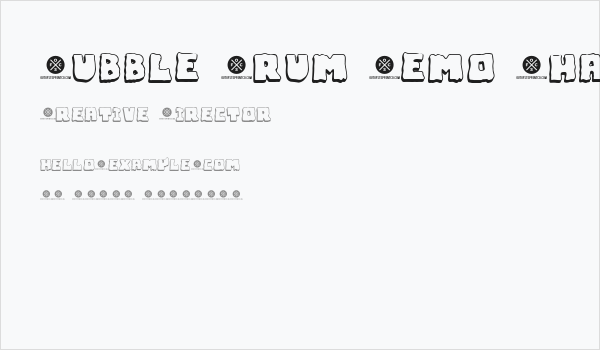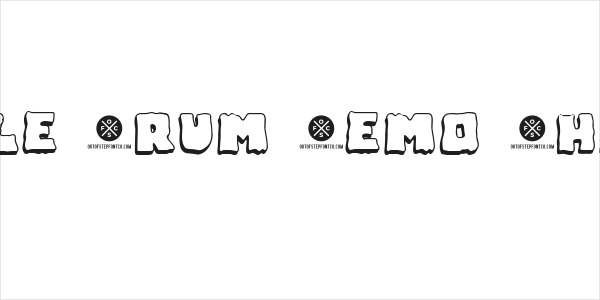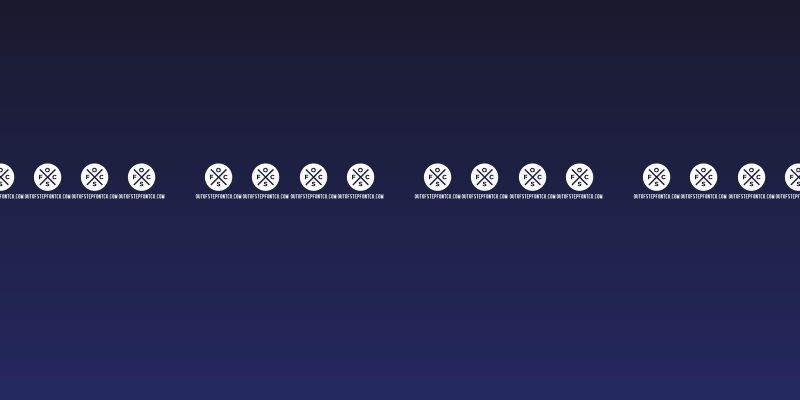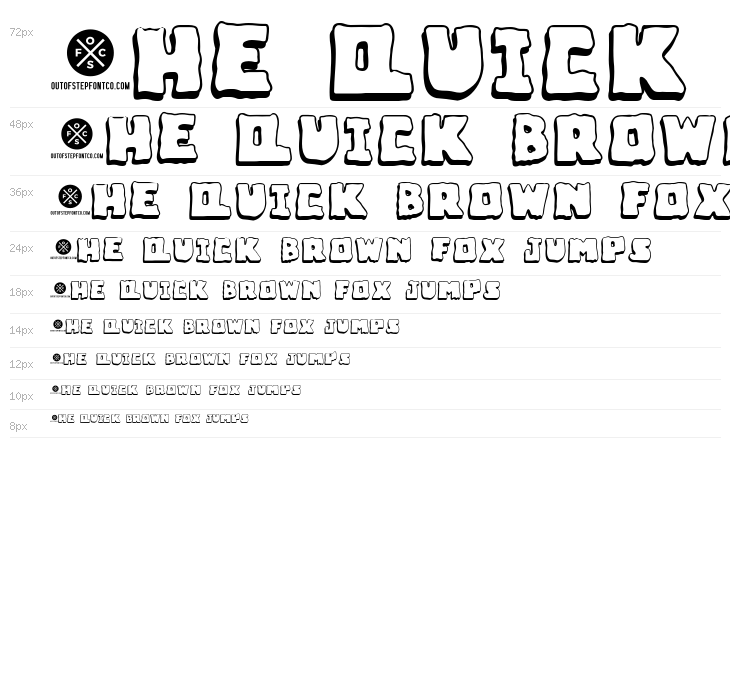
Bubble Frum Demo Shadow Font
Bubble Frum Demo Shadow Description
This playful and bold font features a unique shadow effect that gives each character a three-dimensional appearance. The letters are rounded and bubbly, creating a fun and whimsical style. The uppercase letters maintain a consistent height, while the lowercase letters are slightly smaller, preserving readability. The numbers and special characters follow the same design principles, ensuring a cohesive look across all glyphs. This font's distinct shadow adds depth, making it stand out in any design project.
| Proposed Projects | Ideal for children's books, playful branding, party invitations, and eye-catching posters. |